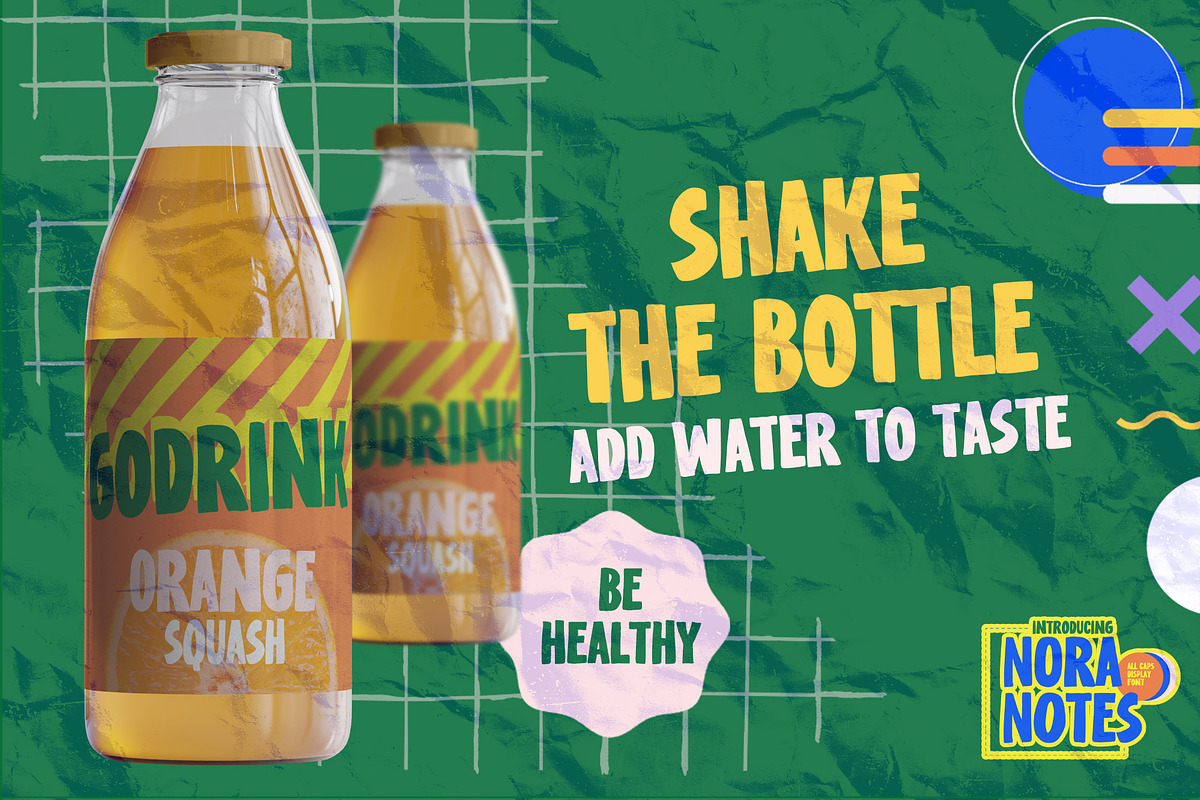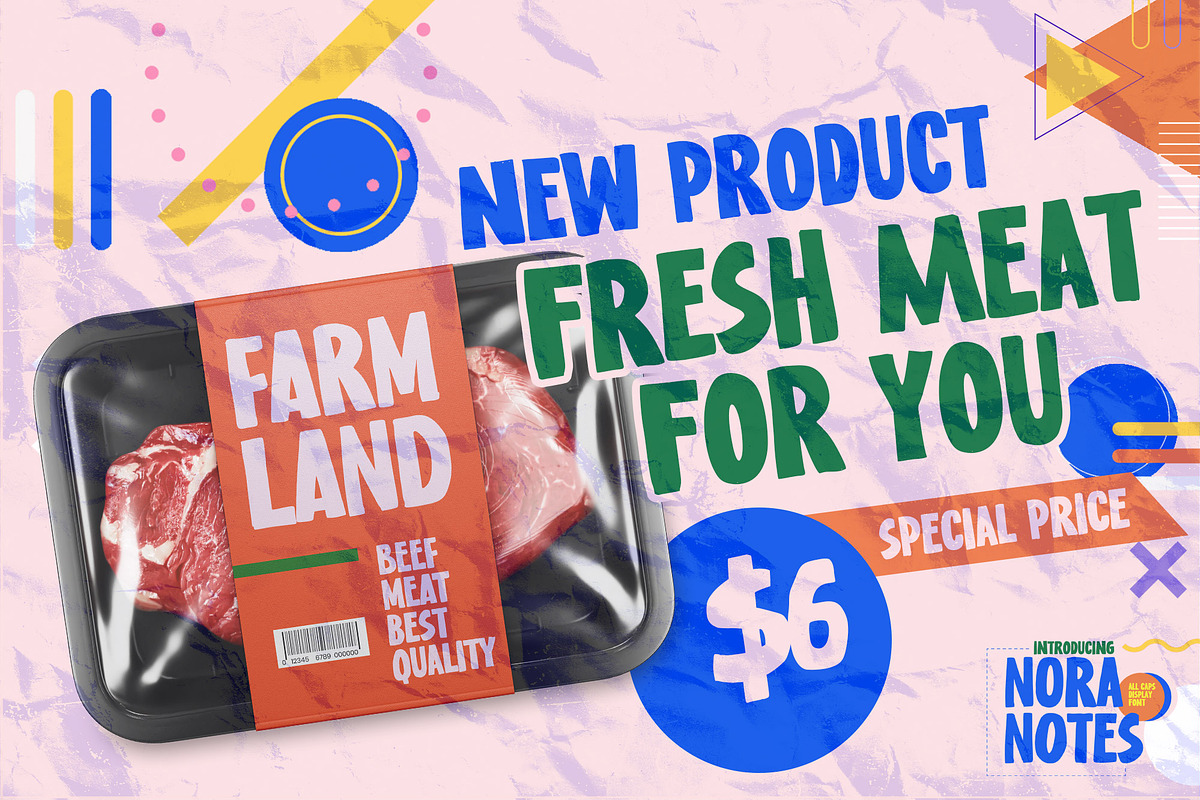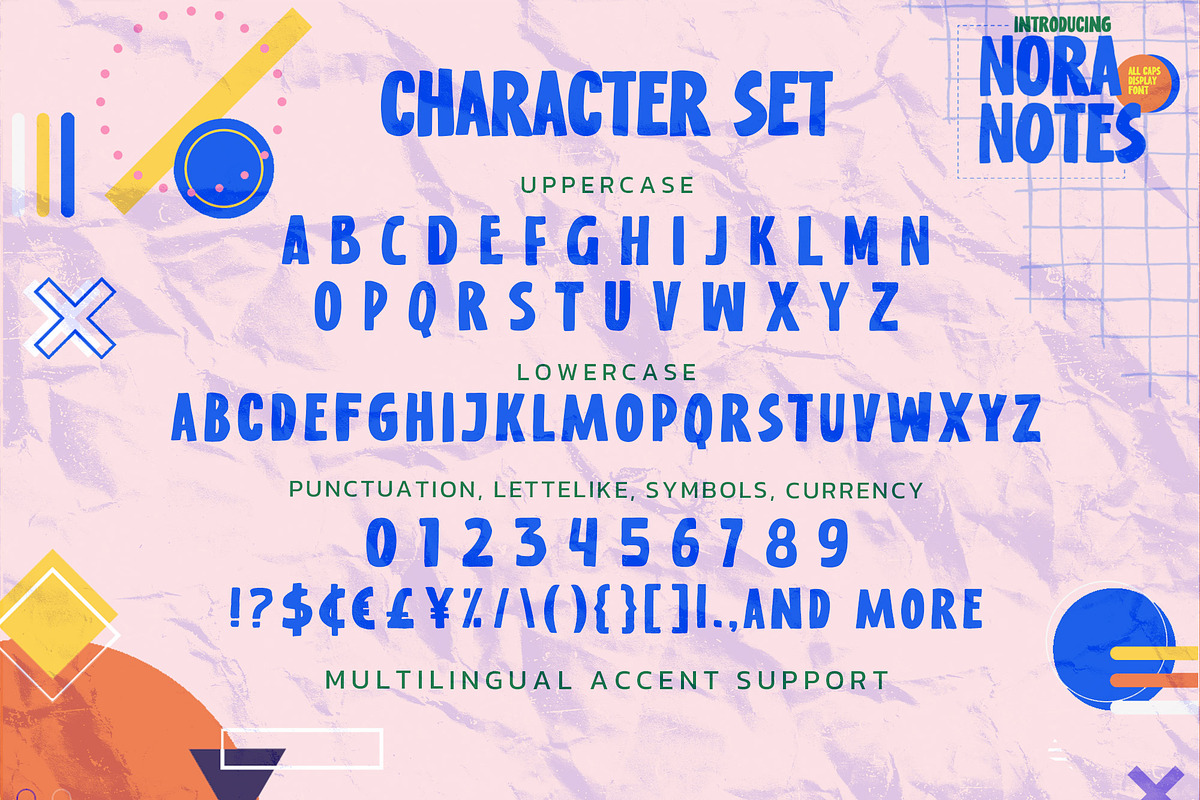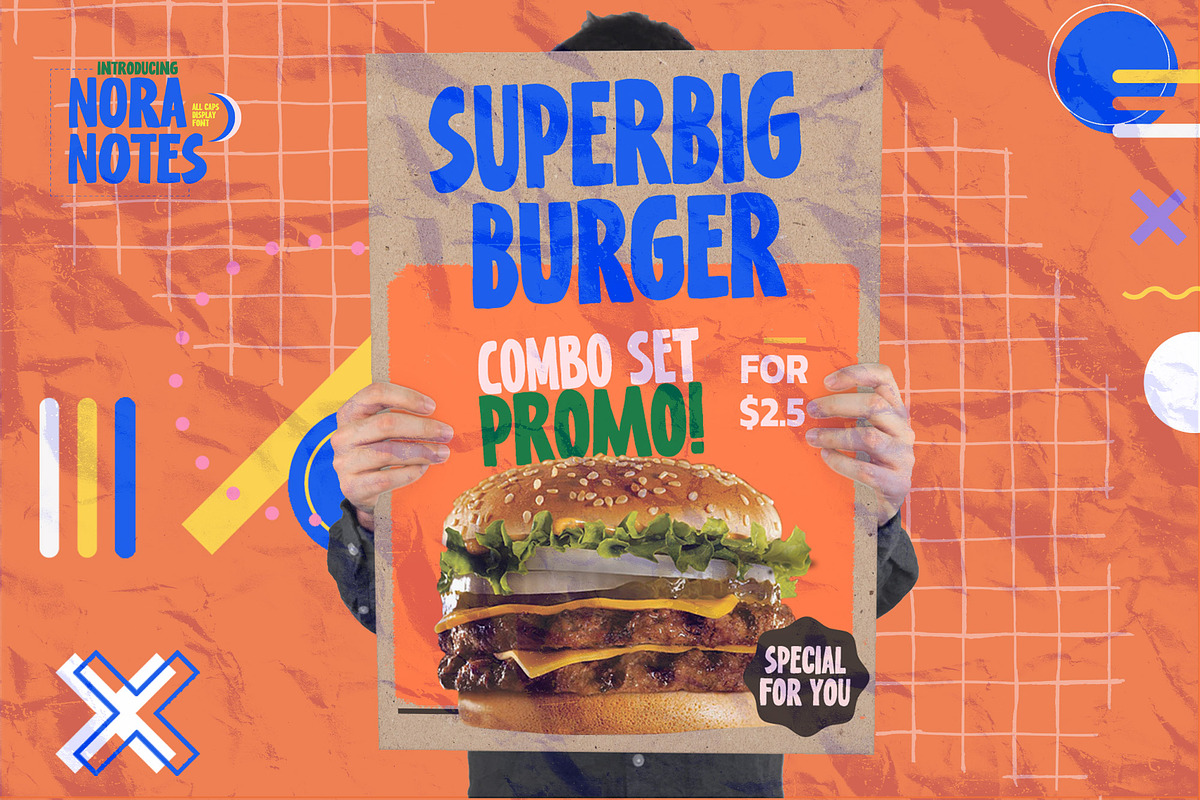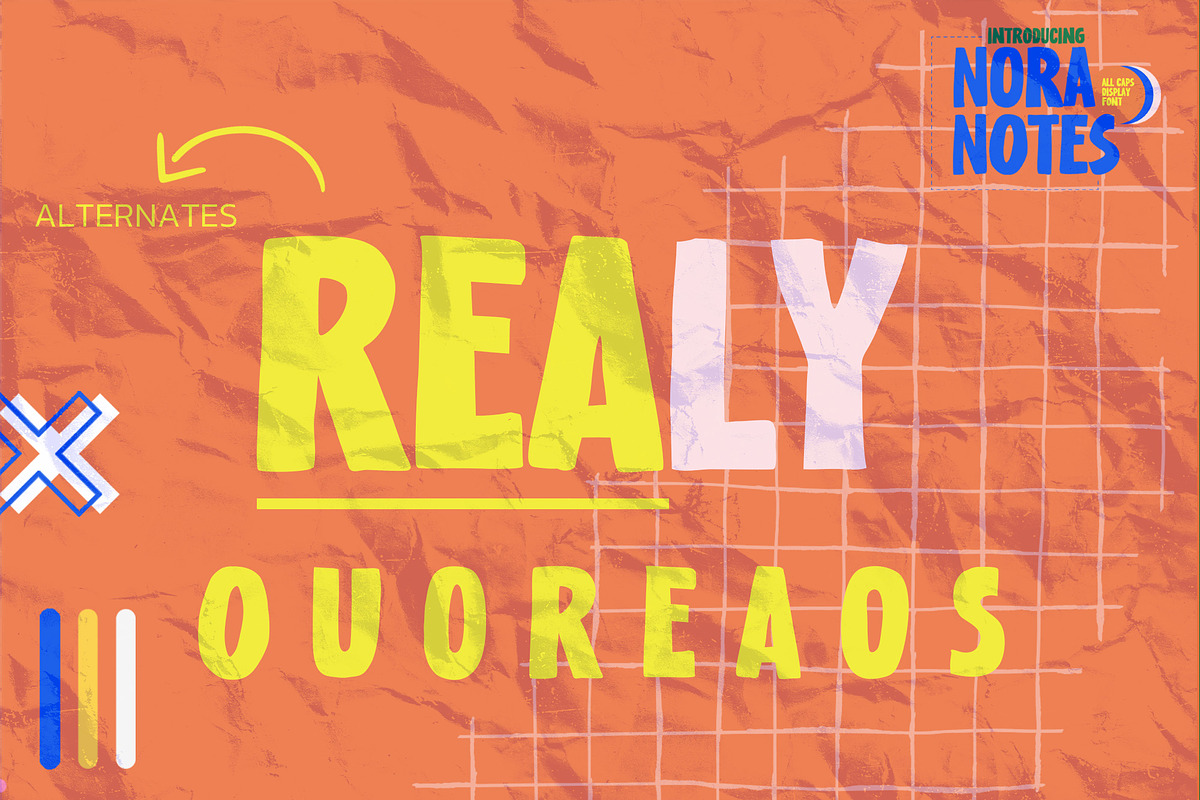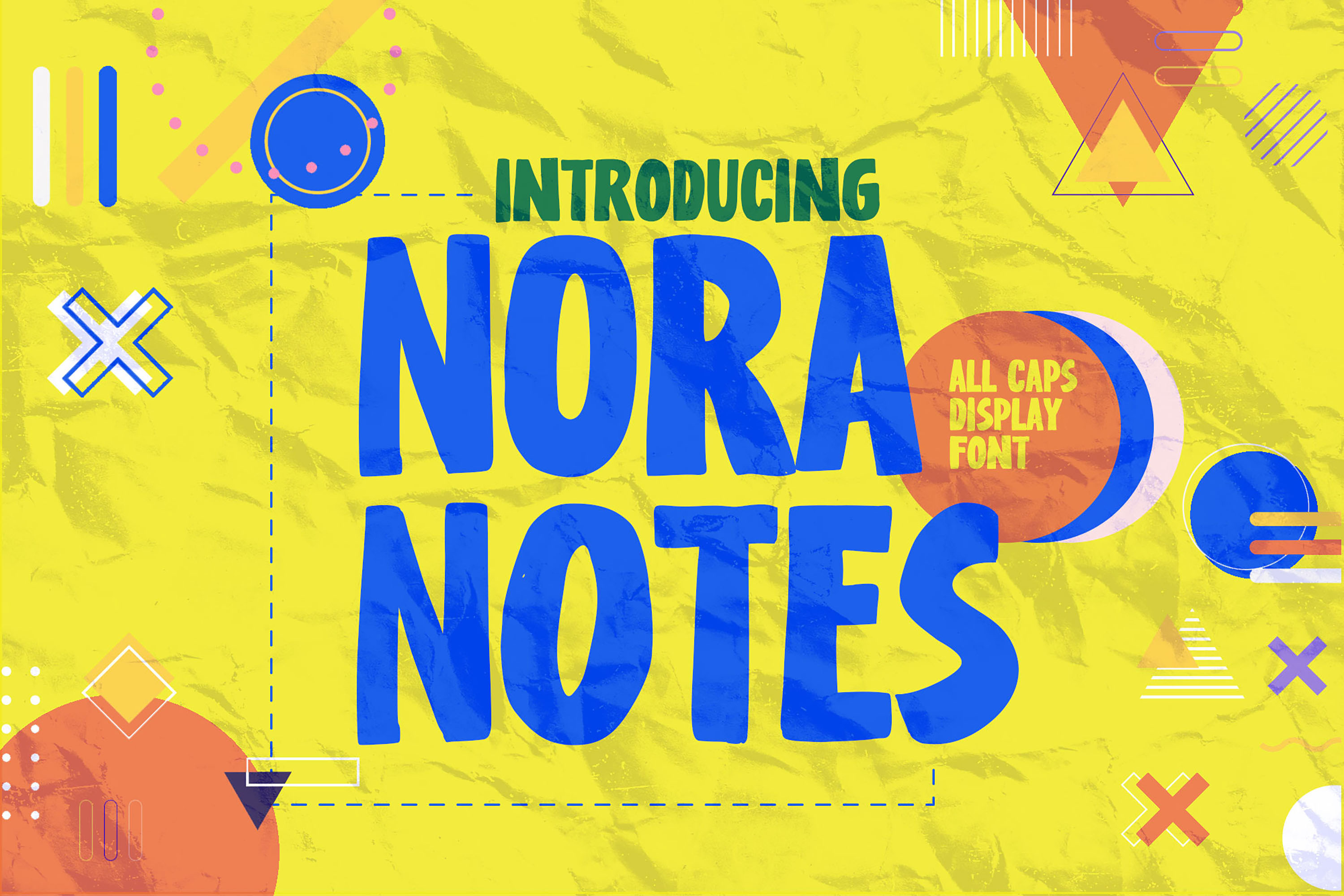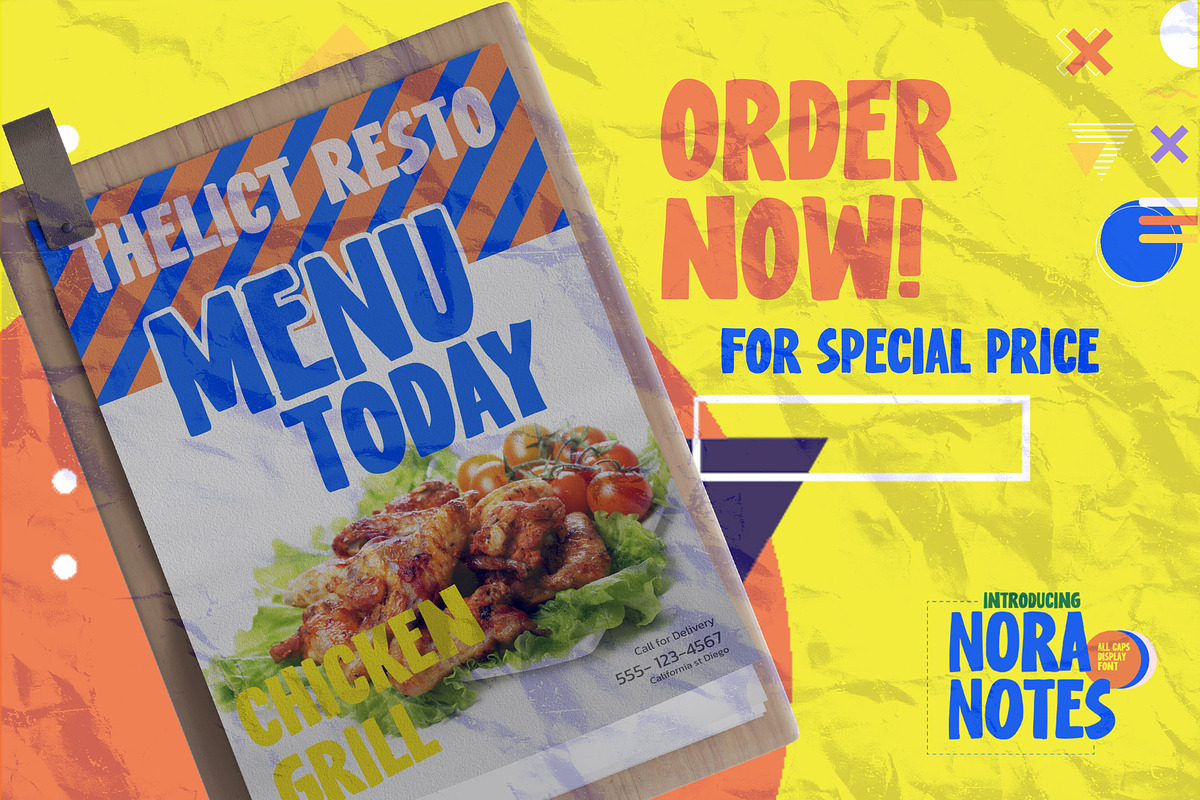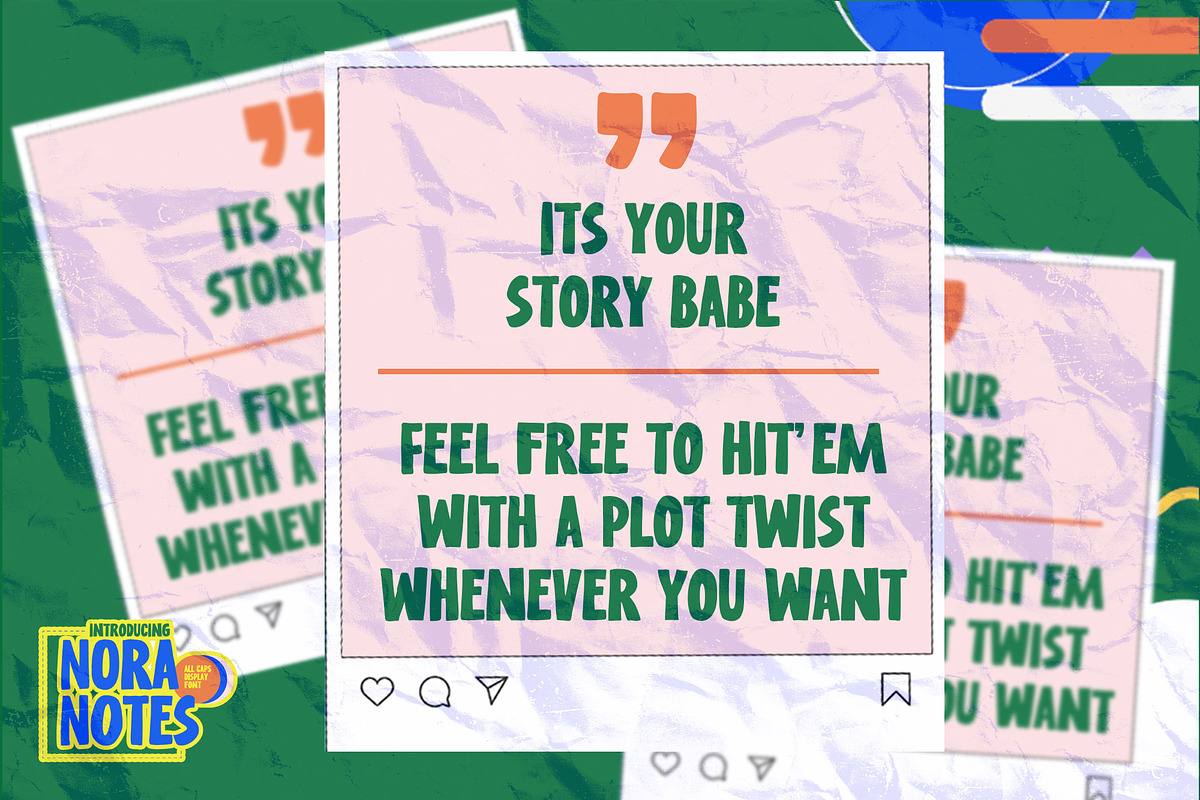
Nora Notes - All Caps Display Font
Hello Everyone, introduce our new product Nora Notes is All Caps Display Font with a natural feel. This handmade font will make your design has a beautiful natural touch for each details. It is perfect for any design project as Invitation,logo, book cover, craft or any design purposes.
Nora Notes is Inspired by Food Logo style and combination with Unique Craft style. that will fulfill your design needs for quotes,sporty theme, logotype, wordmark, etc. This has many opentype features and support multi language. This font is PUA encoded which means you can access all of the magical glyphs with ease! You can activate Alternates glyphs OpenType panel.
- Alternates glyphs